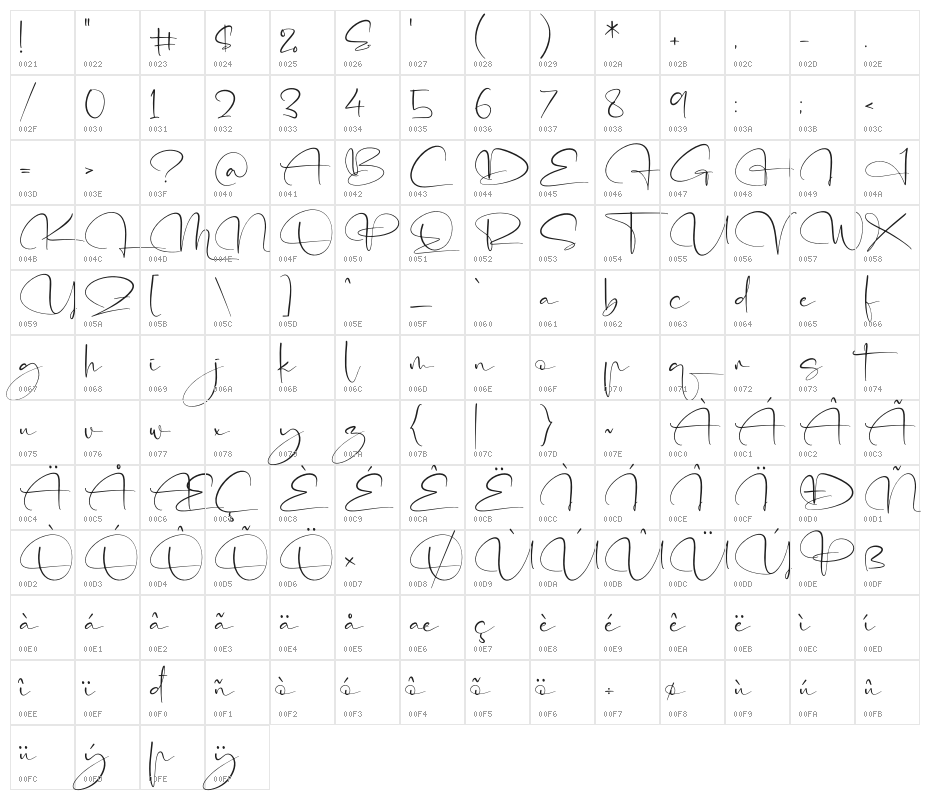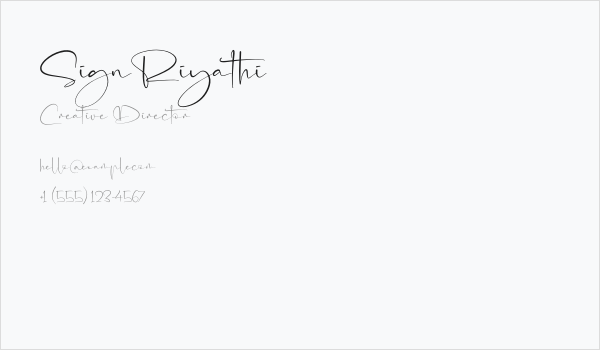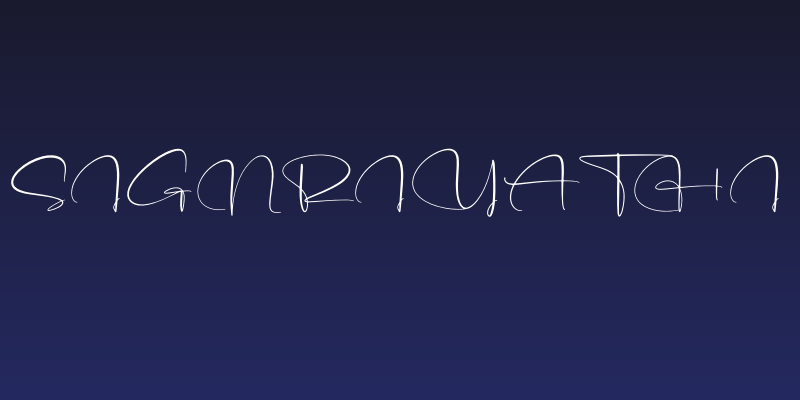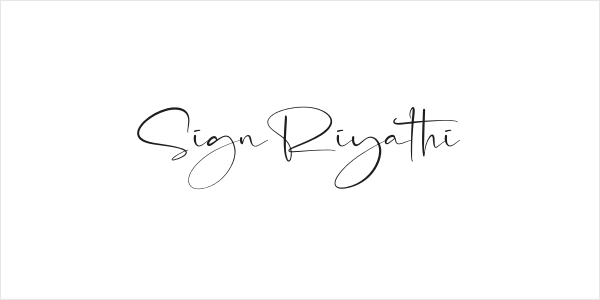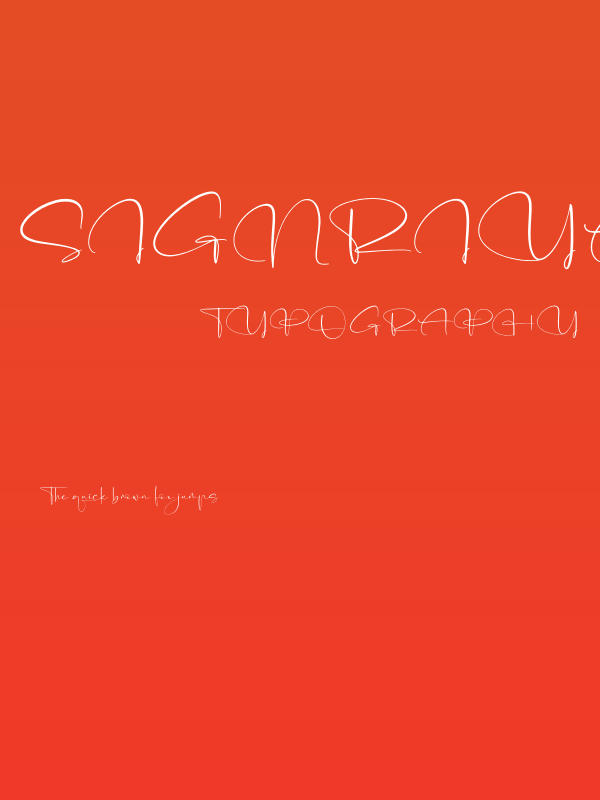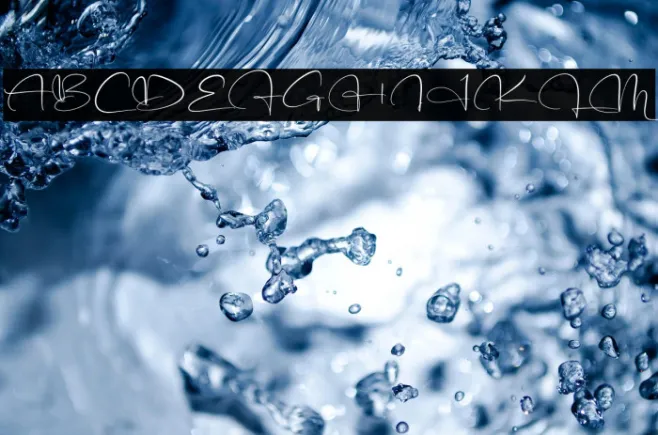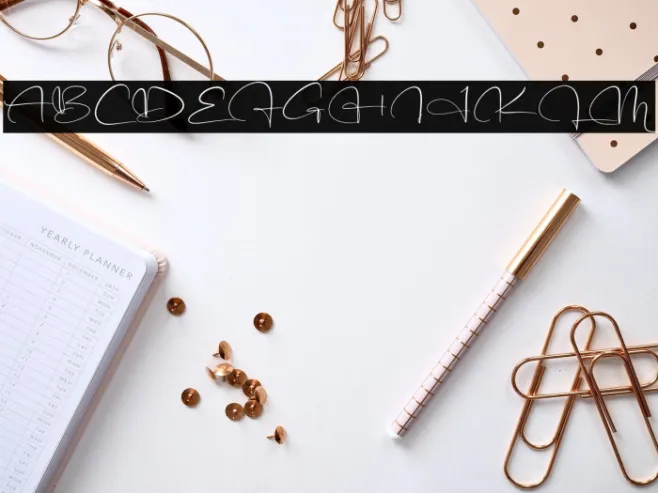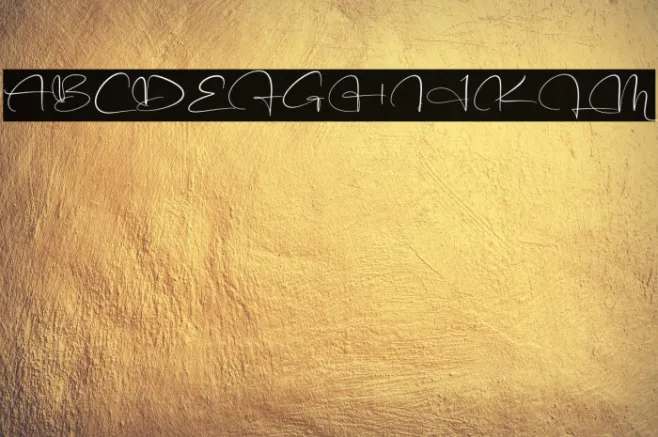
SignRiyathi Font
SignRiyathi Description
This font exhibits a dynamic and expressive handwritten style, characterized by its fluid and interconnected strokes. The uppercase letters are elegantly elongated, while the lowercase letters maintain a consistent flow, giving the font a cohesive appearance. The numerals are distinct yet harmonize well with the overall aesthetic. Special characters are creatively integrated, adding to the font's versatility. The design is modern and artistic, making it suitable for projects that require a personal touch.
| Overall Style | Modern, Artistic |
| Proposed Projects | Ideal for personal branding, invitations, artistic projects, and creative logos. |